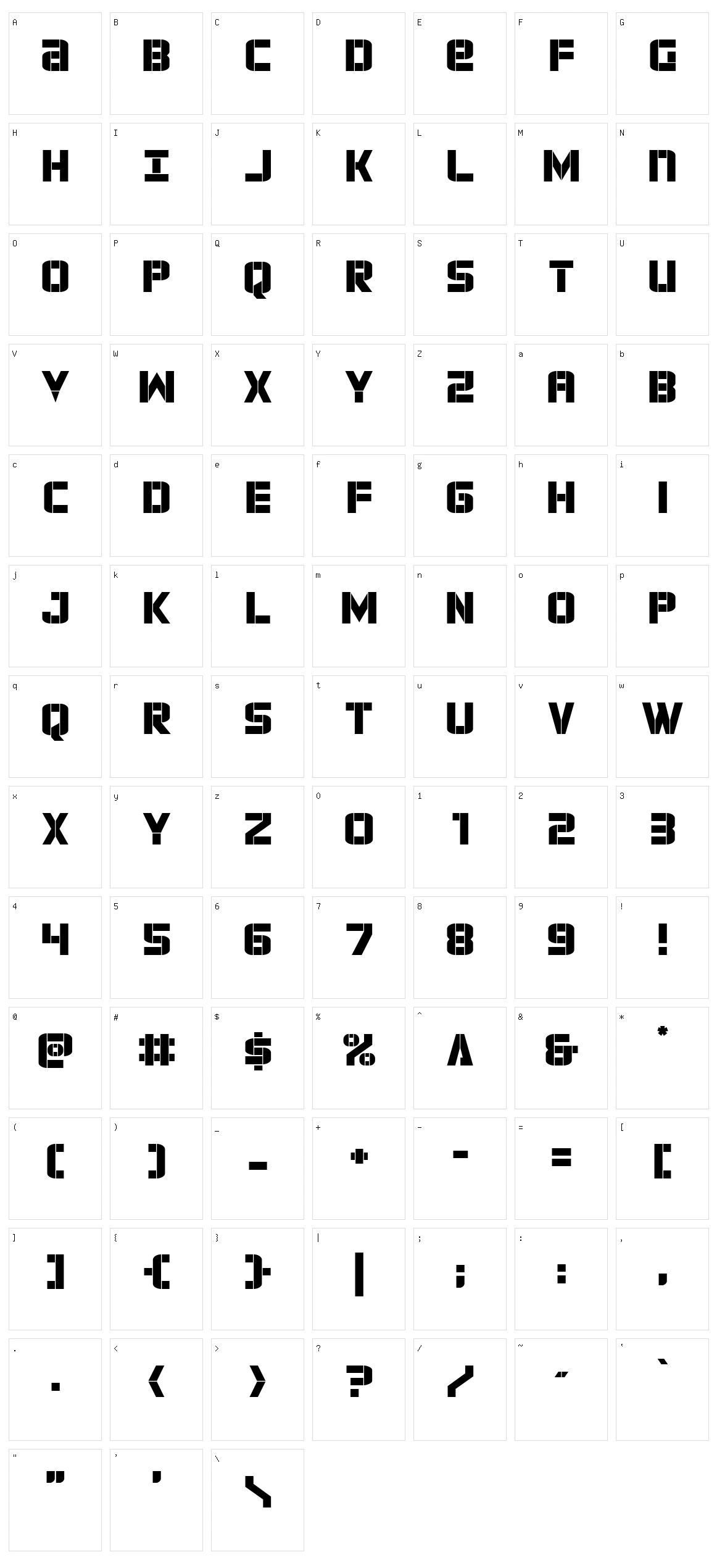
This font comes with the following 13 versions: Regular, Italic, Semi-Italic, Condensed, Condensed Italic, Expanded, Expanded Italic, Outline, Outline Italic, 3D, 3D Italic, Semi-Leftalic and Leftalic.